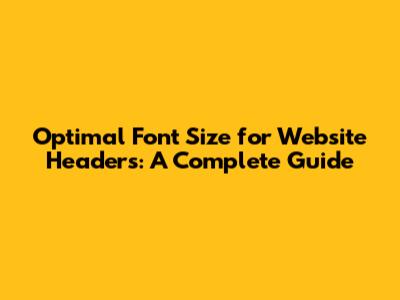
Choosing the best font size for your website header is super important. It's like picking the perfect outfit for a first date – you want to make a great impression! Your header is one of the first things visitors see, so you want to make sure it's readable, visually appealing, and aligns with your brand. Get this wrong, and you risk losing potential customers before they even scroll down.
Why Font Size Matters in Website Headers
So, why sweat over font sizes? Well, font size in your website header directly impacts readability and user experience. Imagine landing on a site where the header text is so tiny you need a magnifying glass or so large it overwhelms everything else. Not a great experience, right? A well-chosen font size ensures that your header text is easily readable on all devices, from desktops to smartphones. This is crucial because readability affects how long visitors stay on your site and whether they engage with your content. A clear, readable header helps users quickly understand what your site is about, encouraging them to explore further.
Beyond readability, optimal font size in your website header plays a significant role in visual hierarchy. The header is typically the first element users see, and its size influences where their eyes go next. A larger font size naturally draws attention, making the header stand out and establishing it as the most important element on the page. This is why many websites use larger fonts for their headers compared to the body text. By strategically using font sizes, you can guide users through your site, highlighting key information and calls to action. This is essential for creating a positive user experience and achieving your website's goals, whether it's generating leads, selling products, or providing information. Ultimately, the right font size can make your site more engaging, user-friendly, and effective.
Moreover, selecting the best font size for your website header contributes significantly to your brand identity. Consistent typography across your website, including the header, helps reinforce your brand's personality and values. A modern, clean font in a suitable size can convey professionalism and trustworthiness, while a more playful font might be appropriate for a creative brand. The key is to choose a font size that complements your overall design and reflects your brand's voice. In addition to brand consistency, the right font size also impacts accessibility. Ensuring that your header text is readable for users with visual impairments is not only ethical but also good for SEO. Search engines prioritize websites that offer a good user experience, and accessibility is a key factor in this. By choosing an appropriate font size, you can make your website more inclusive and improve its visibility in search results. Therefore, font size is not just a design element; it's a critical component of your brand's identity and online success.
General Guidelines for Header Font Sizes
Alright, let's dive into some specifics. As a general rule, your H1 (main header) should be the largest text on the page. Think of it as the headline of a newspaper – it needs to grab attention! A good starting point is around 30-40 pixels for desktop. For H2, H3, and so on, you can gradually decrease the size. H2 might be around 24-30 pixels, and H3 around 18-24 pixels. These are just starting points, though. The actual best size will depend on your font choice and overall design.
When considering general guidelines for header font sizes, keep in mind that these numbers are just a baseline. The ideal font size for your website header depends on a variety of factors, including the font family you choose, the overall design of your site, and the specific goals you want to achieve. For instance, a bold, impactful font might look great at a slightly smaller size than a thinner, more delicate font. Similarly, if your website has a minimalist design, you might opt for larger headers to create a stronger visual impact. Conversely, if your site is content-heavy, smaller headers might be more appropriate to avoid overwhelming the user. It's also important to consider the hierarchy of your headers. Your H1 should always be the largest, followed by H2, H3, and so on, to create a clear visual structure that guides users through your content. Experimenting with different font sizes and styles is crucial to finding the perfect balance for your site.
Furthermore, when thinking about general guidelines for header font sizes, it's essential to consider the context in which the headers appear. For example, headers that are placed against a busy background might need to be larger or bolder to ensure they stand out. Similarly, headers that are used in navigation menus or sidebars might need to be smaller and more compact to fit within the available space. The key is to ensure that your headers are always readable and visually appealing, regardless of their placement on the page. In addition to size, also think about other formatting options, such as letter spacing, line height, and text color. Adjusting these elements can significantly impact the readability and overall appearance of your headers. For instance, increasing the letter spacing can make a header feel more open and airy, while adjusting the line height can improve readability by creating more space between lines of text. Ultimately, the best approach is to experiment with different combinations of font size, style, and formatting to find what works best for your specific website and audience.
Also, don't forget about mobile! Responsiveness is key. Your header font sizes need to adjust automatically based on the screen size. Aim for readability on smaller screens without making the text too large and clunky. Usually, you'll want to reduce the font size for mobile devices to maintain a clean and user-friendly experience. This is typically achieved through CSS media queries, which allow you to define different styles for different screen sizes.
Choosing the Right Font
The right font is just as important as the size. Some fonts naturally appear larger or smaller than others at the same pixel size. A font like Impact, for example, is big and bold, so you might be able to use a slightly smaller size than you would with a lighter font like Open Sans. Experiment with different fonts and sizes to see what looks best on your site. Consider the overall aesthetic you're going for. A serif font like Times New Roman might feel more traditional, while a sans-serif font like Arial is more modern.
Selecting the right font involves considering various factors that contribute to both readability and visual appeal. For example, the x-height, which is the height of lowercase letters, can significantly impact how large a font appears. Fonts with a larger x-height tend to look bigger at the same point size as fonts with a smaller x-height. Therefore, it's important to compare different fonts side-by-side to see how they look in relation to each other. In addition to x-height, also consider the weight and width of the font. A heavier weight or wider width can make a font appear more prominent, while a lighter weight or narrower width can make it look more delicate. The choice of font should also align with your brand identity and the overall tone of your website. A formal, serif font might be appropriate for a professional services firm, while a playful, sans-serif font might be better suited for a creative agency. Ultimately, the best font is one that is both readable and visually appealing, and that effectively communicates your brand's message.
Furthermore, choosing the right font requires careful consideration of the context in which the font will be used. For instance, a font that looks great in a large header might not be as readable in smaller body text. Similarly, a font that is easy to read on a desktop computer might not be as legible on a mobile device. Therefore, it's important to test your font choices across different devices and screen sizes to ensure that they are readable in all contexts. You should also consider the language in which your website will be written. Some fonts are better suited for certain languages than others, particularly those with complex character sets. In addition, think about the overall color scheme of your website. The color of your text should contrast sufficiently with the background color to ensure readability. For example, light text on a dark background or dark text on a light background typically works well. However, avoid using colors that are too similar, as this can make the text difficult to read. By taking all of these factors into account, you can choose a font that is both visually appealing and highly readable, enhancing the overall user experience of your website.